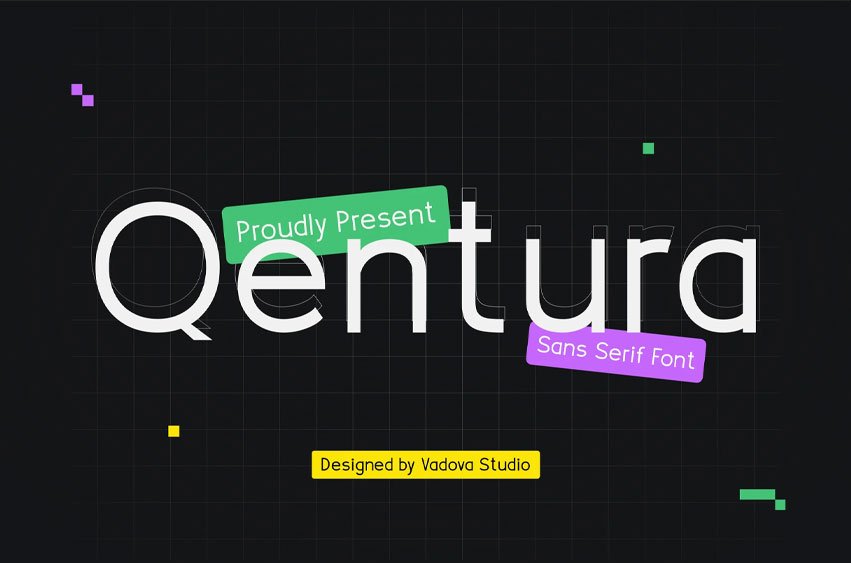
Qentura Font Elevate your designs with Qentura Sans Serif Font, a font perfect for adding elegance and style to your projects. Whether it’s for quotes, logotypes, magazine headers, or more, this versatile typeface ensures your text stands out beautifully.